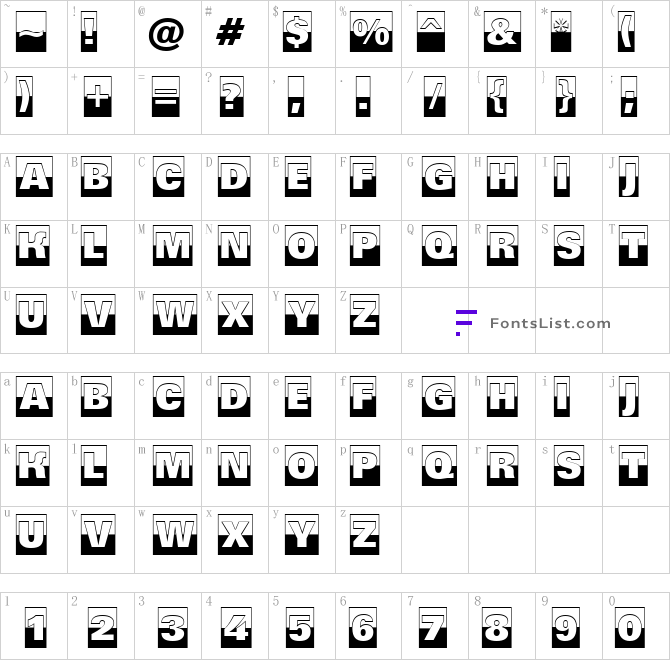
- Font Name:a_GroticTitulCmB&WHv
- Subfamily:a_GroticTitulCmB&WHv
- Full Name:a_GroticTitulCmB&WHv
- PostScript:a_GroticTitulCmB&WHv
a_GroticTitulCmB-WHv.ttf is a very beautiful artistic font, a_GroticTitulCmB-WHv.ttf is widely used in the design and printing of various books and pictures,a_GroticTitulCmB-WHv.ttf has a strong visual impact,a_GroticTitulCmB-WHv.ttf is a commonly used font in newspapers, magazines and books, and is used in posters, e-commerce Poster design, store design, logo design, font design and other fields.a_GroticTitulCmB-WHv.